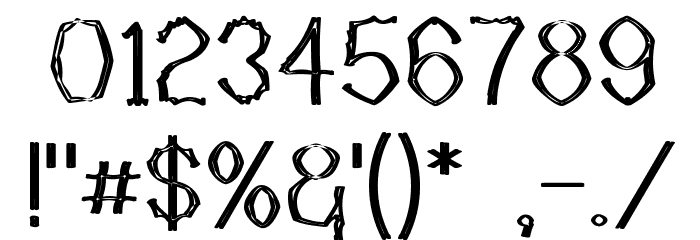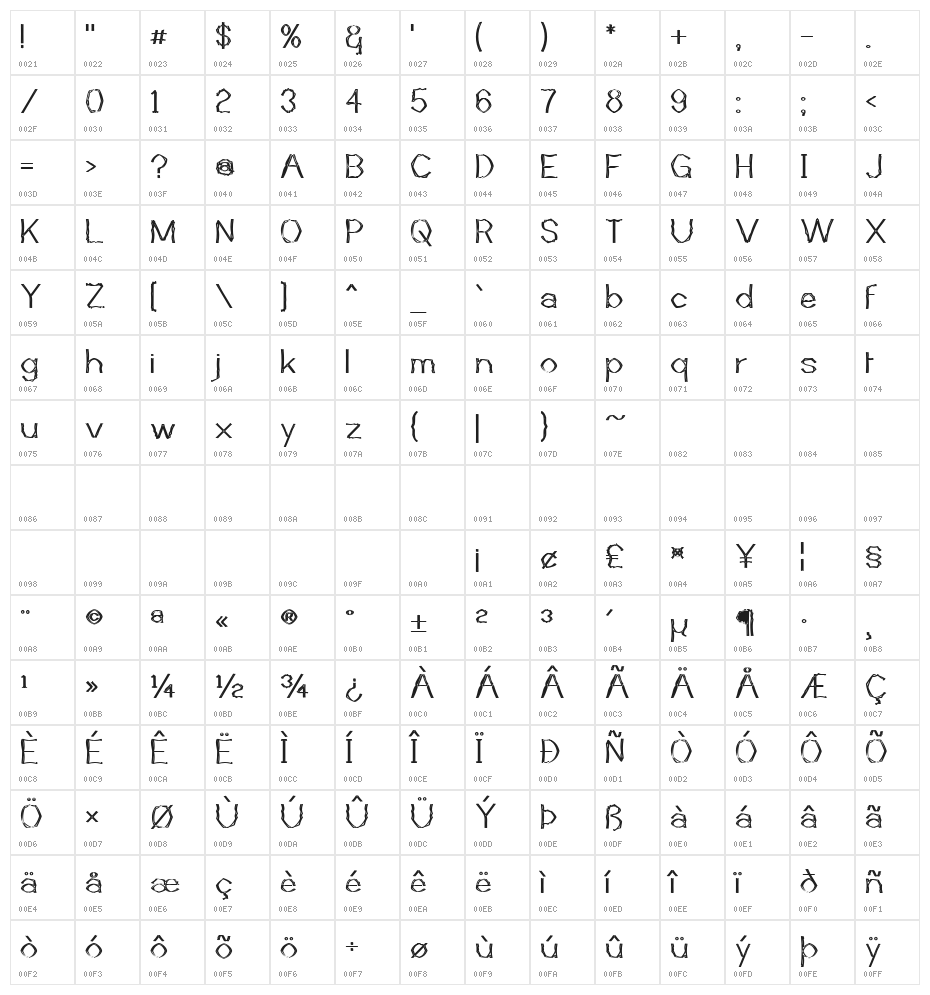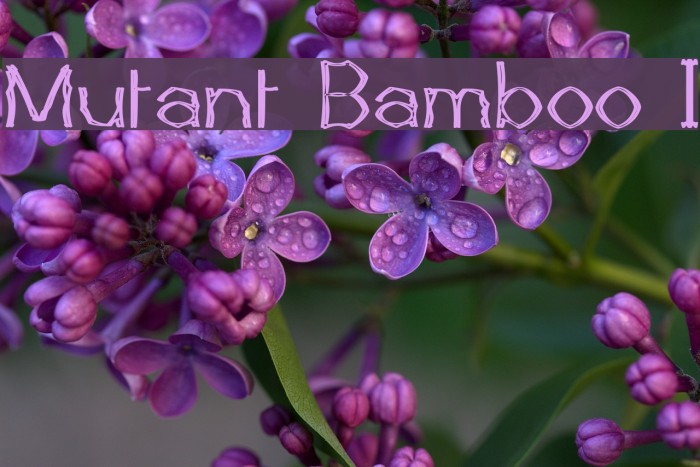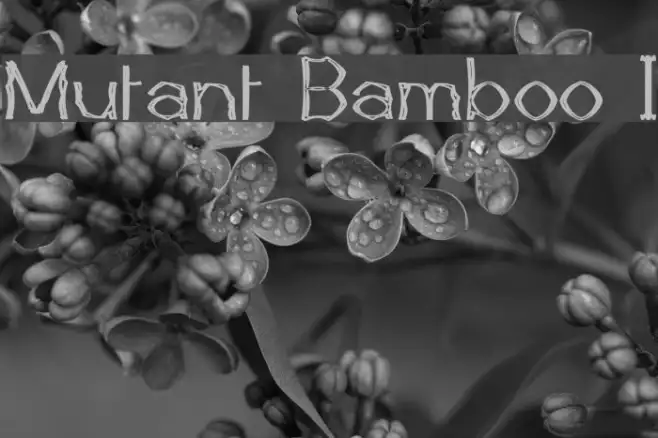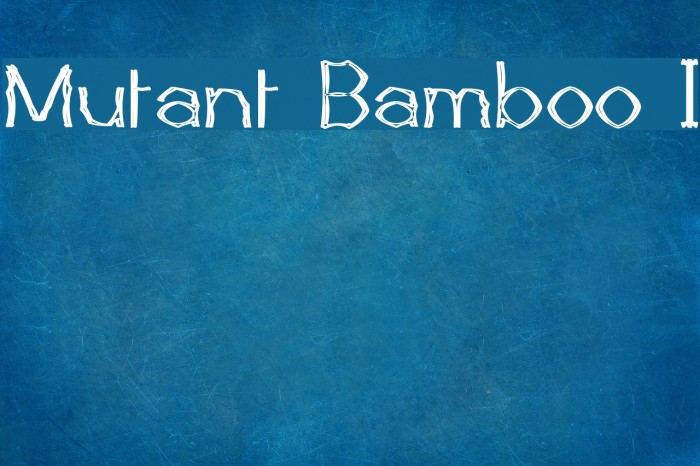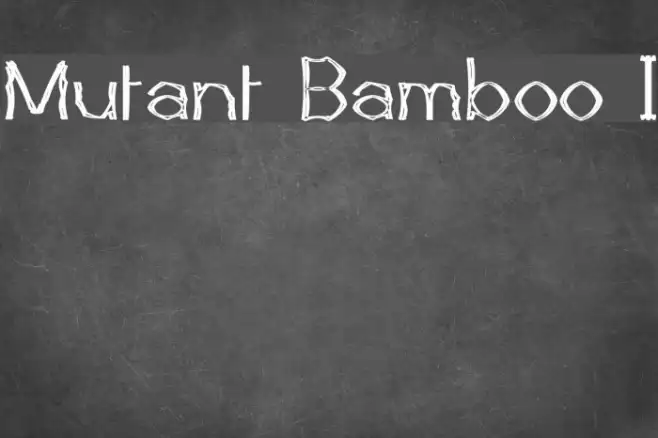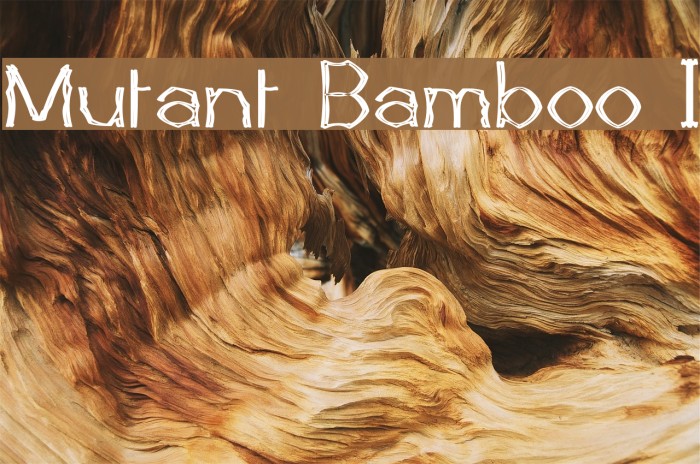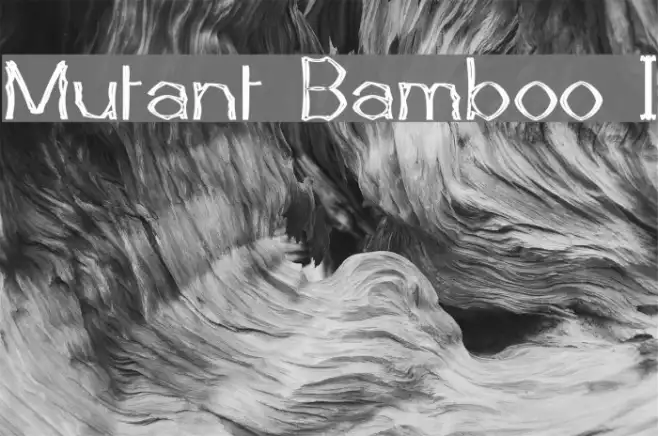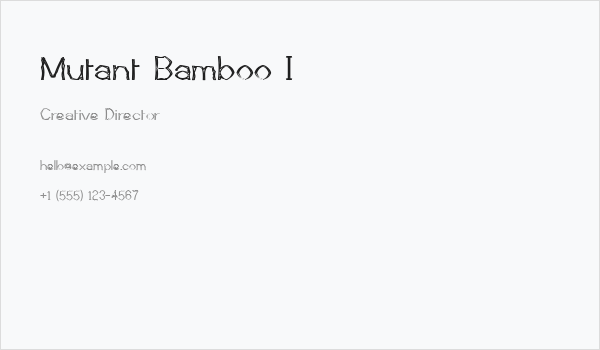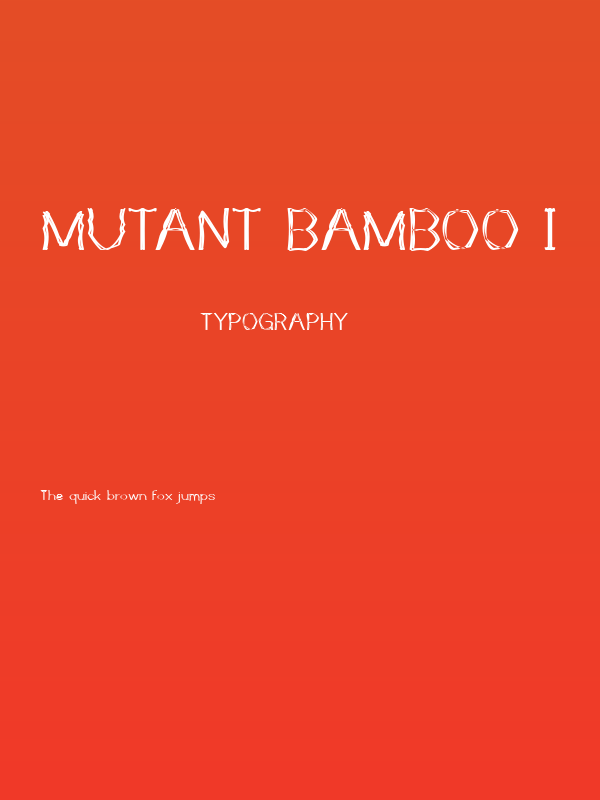
Mutant Bamboo I Font
Mutant Bamboo I Description
This font features a unique and organic design, reminiscent of bamboo stalks with a mutant twist. The characters have an irregular, hand-drawn appearance, with uneven strokes and a slightly chaotic structure. Each letterform is distinct, with varying thicknesses and angles, giving the font a dynamic and lively feel. The uppercase and lowercase letters maintain a consistent style, while the numerals and special characters follow the same quirky aesthetic. This font is perfect for projects that require a touch of nature-inspired creativity and an unconventional look.
| Use Case | Logos, Posters, Creative Invitations |
| Proposed Projects | Ideal for eco-friendly branding, artistic posters, and creative event invitations. |